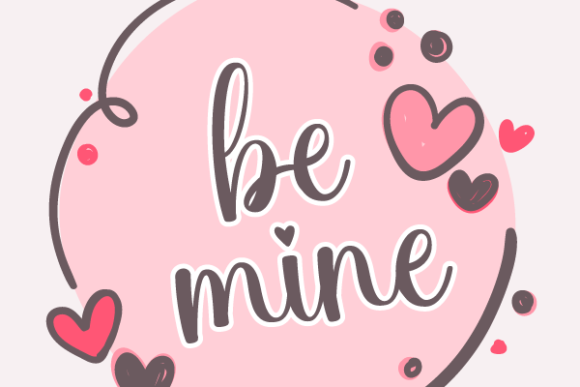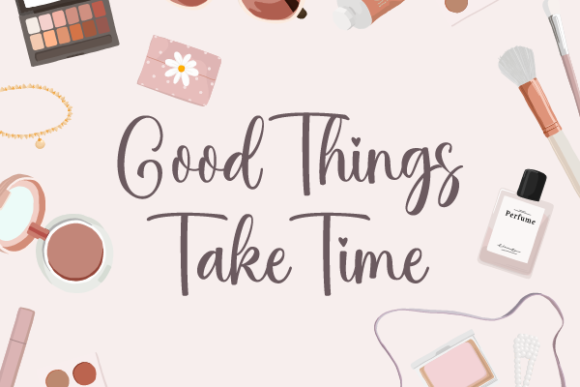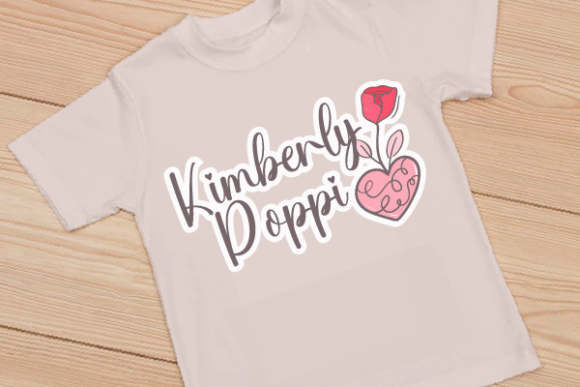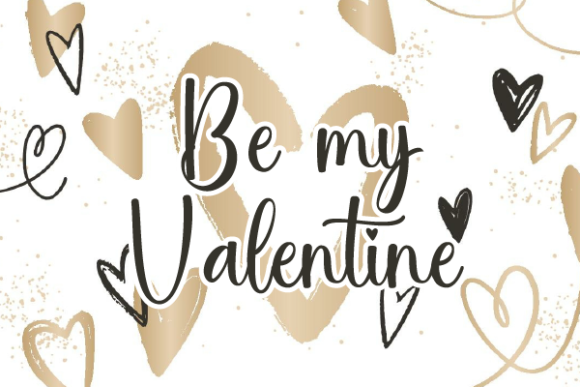
Kimberly Poppi Font
About Kimberly Poppi Font
Introducing “Kimberly Poppi,” a captivating and free-flowing script font meticulously crafted for a wide range of creative projects. This font is tailored for packaging products, invitation cards, flyers, mockups, event posters, and any design endeavor that demands a touch of high-quality elegance. Its aesthetic features a beautiful and balanced character, making it a versatile choice that seamlessly integrates into various design contexts.
Key Features of Kimberly Poppi:
– **Free-Flowing Script:** The font boasts a natural and fluid script, adding a touch of organic beauty to your designs.
– **Versatile Application:** Tailored for packaging, invitation cards, flyers, mockups, event posters, and more. Its adaptability ensures it fits well within a diverse design pool.
– **High-Quality Vibes:** Kimberly Poppi exudes a sense of quality and sophistication, enhancing the overall visual appeal of your projects.
– **Balanced Character:** The font’s design strikes a harmonious balance, making it suitable for both prominent and intricate design elements.
Whether you’re crafting a label for a product, designing an invitation for a special occasion, creating eye-catching flyers, or putting together event posters, Kimberly Poppi is designed to elevate your work with its refined and charming aesthetic.